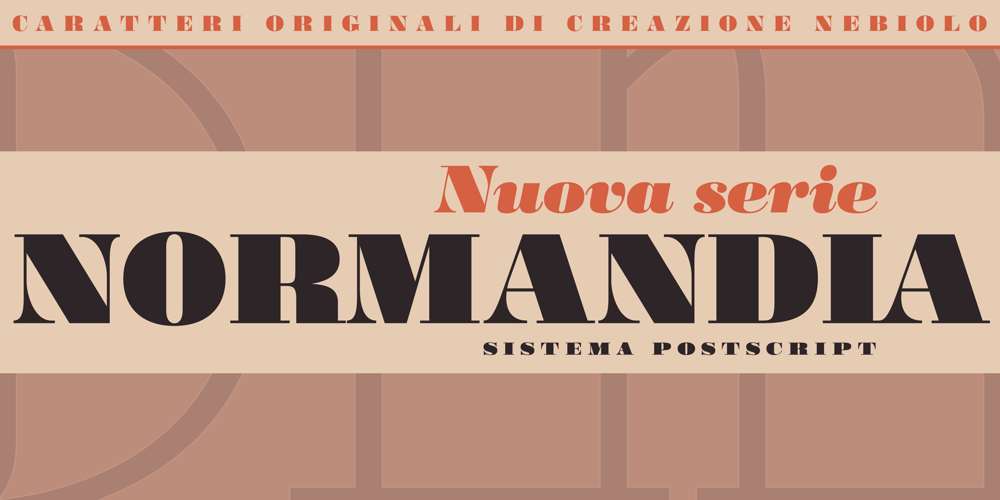
Normandia
Normandia font
Normandia Font Family was designed by Alessandro Butti, Hans van Maanen, Patrick Griffin and published by Canada Type. Normandia contains 3 styles and family package options. Designed over three years after the second World War, and published in 1949 by the Nebiolo foundry, Normandia was Alessandro Butti’s take on the fat face. As it usually was with Butti’s designs, this face effectively injected a catchy yet expertly calculated calligraphic spin into its source of inspiration — which was the essentially geometric/deco, thicker model of Bodoni’s very popular aesthetic.The metal Normandia saw some widespread use for a handful of years after its publication, not least because of the multitude of sizes in which it was available. It stepped out of the limelight by the mid-1950s, due to a combination of the popularity of cold type and Nebiolo’s refusal to retool its faces for new technologies. It was copied by a few small film typesetting outfits on both sides of the Atlantic, but never really found its way back to the mainstream. By the time computer type became the norm, Normandia was pretty much relegated to a type historian’s collection of anecdotes.This digital update of the classic series revives and refines the three original metal designs (Tonda/Regular, Corsiva/Italic, and Contornata/Outline) and expands the character set to more than 600 glyphs per font, including small caps, six types of figures, fractions and nut fractions, a full set of f-ligatures, some stylistic alternates, and other fine typography niceties.